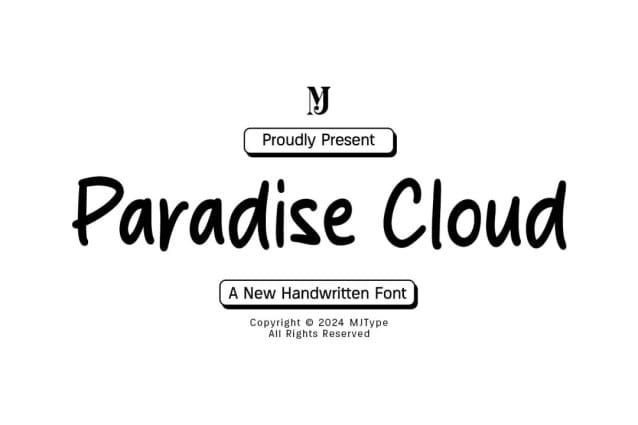
Paradise Cloud Font
Paradise Cloud Font is a simple and friendly handwritten font. Its natural and unique style makes it incredibly fitting to a large pool of designs. The only limit is your imagination!